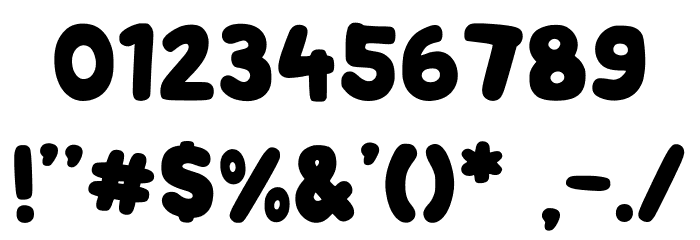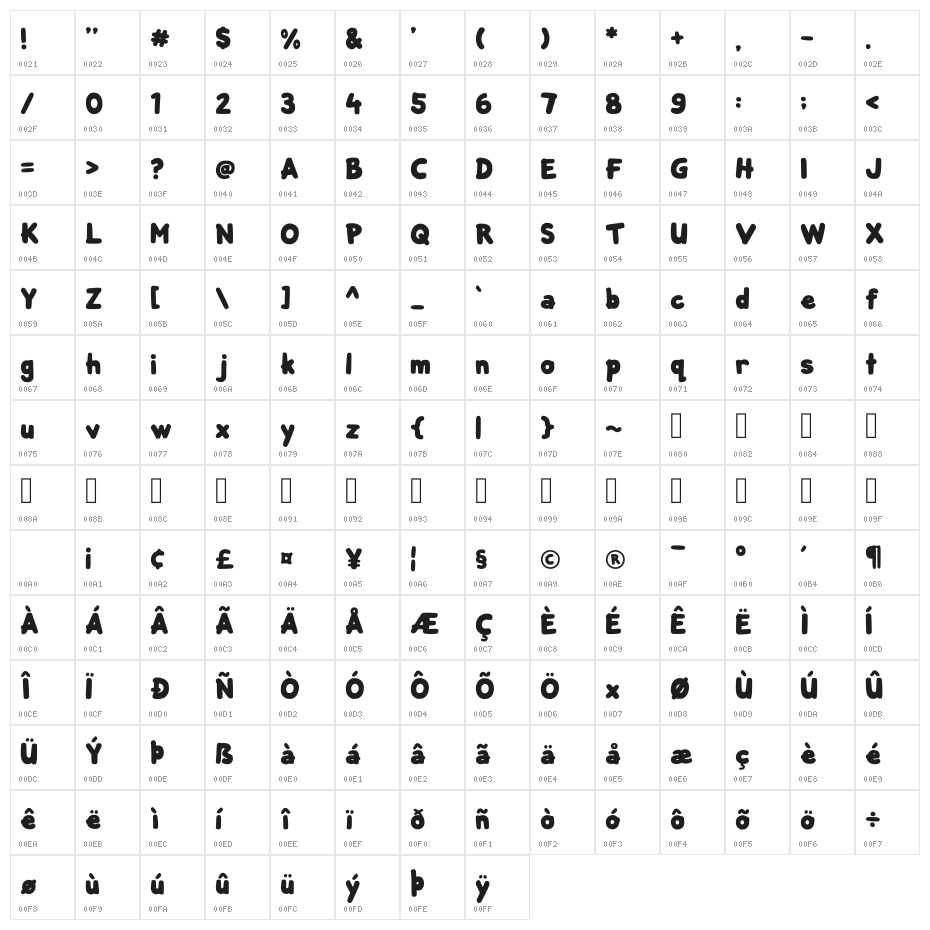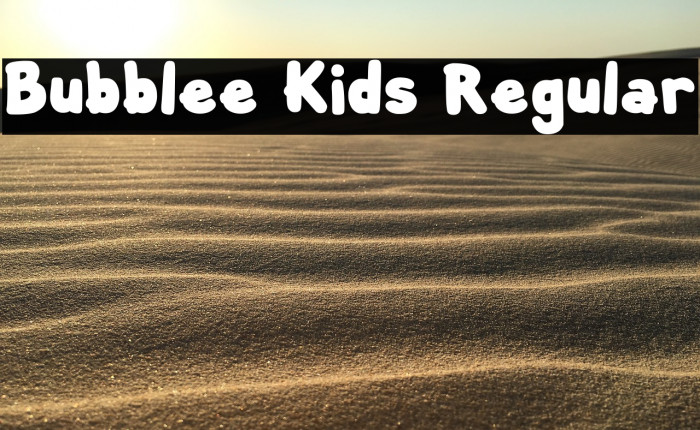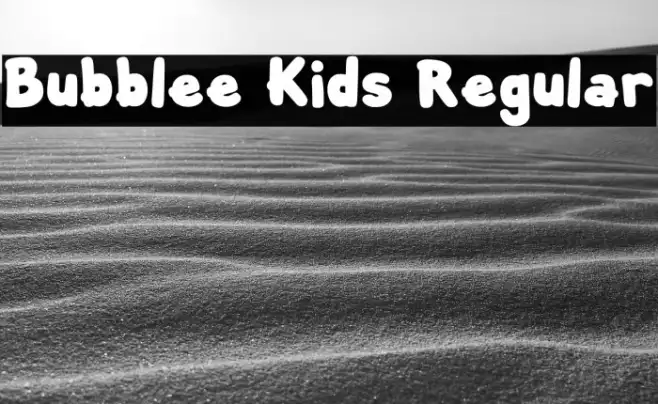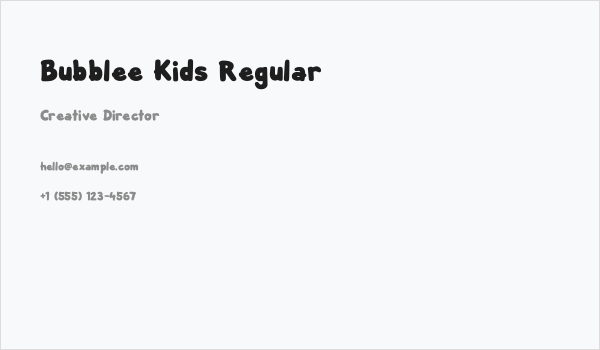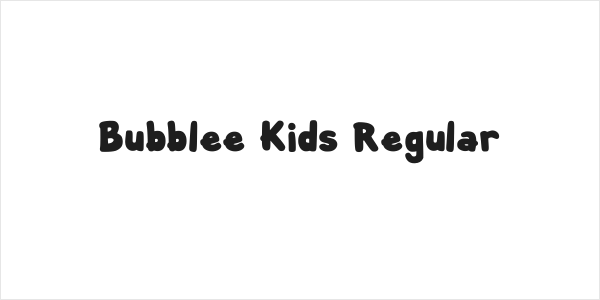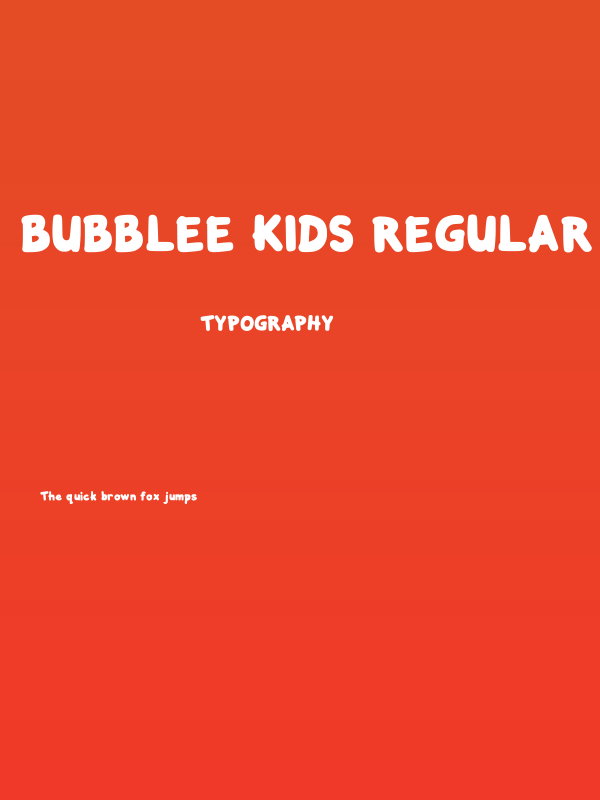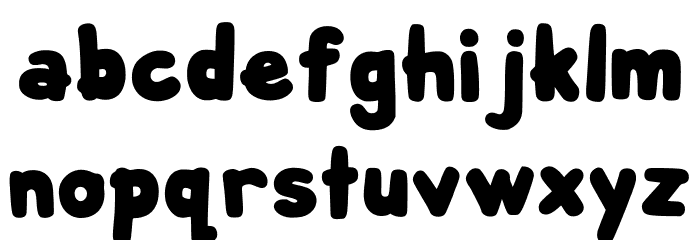
Bubblee Kids Regular Font
Bubblee Kids Regular Description
This playful and whimsical font features rounded, bubbly characters that exude a sense of fun and creativity. The letters are bold and have a uniform thickness, giving them a cartoonish and approachable appearance. The overall style is informal, making it ideal for projects aimed at children or for designs that require a lighthearted touch. The characters are evenly spaced, ensuring readability while maintaining a playful aesthetic. The font includes a full set of uppercase and lowercase letters, numbers, and a variety of special characters, making it versatile for different design needs.
| Proposed Projects | Ideal for children's books, educational materials, playful branding, party invitations, and creative posters. |